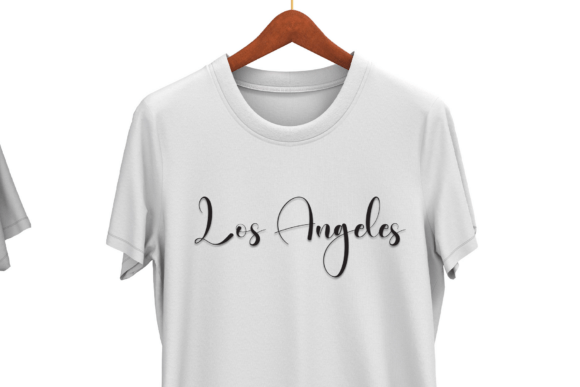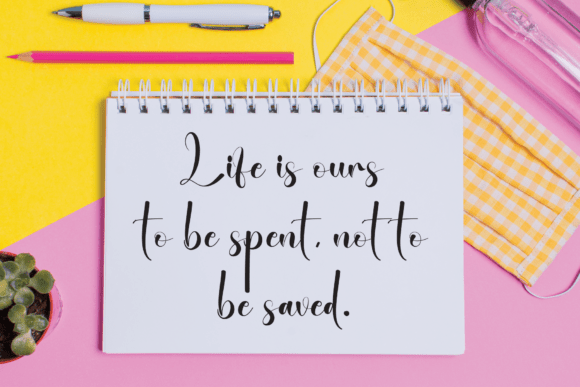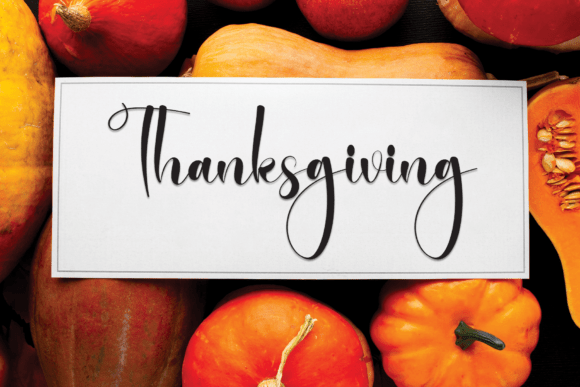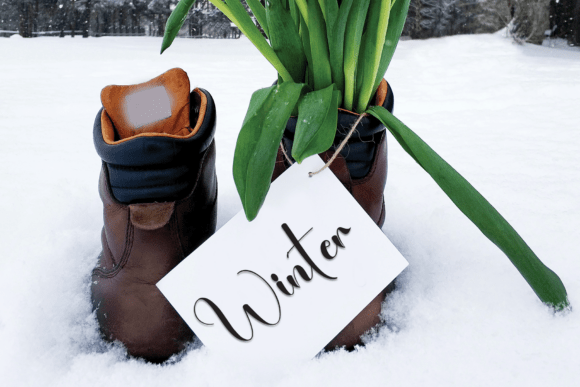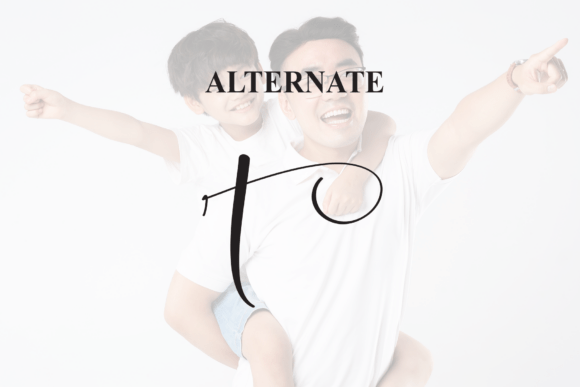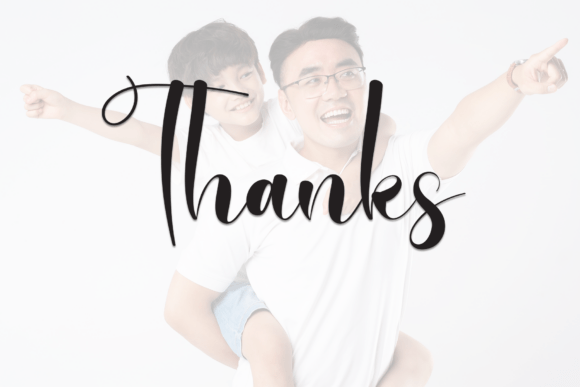
The Father Font: A Dynamic and Expressive Handwritten Typeface for Family Celebrations
A Personal and Expressive Typeface
The Father font is a dynamic and expressive handwritten typeface that celebrates the energy and connection of family life. This font is characterized by its sweeping, dramatic swashes and bold, rhythmic strokes that mimic the confident movement of a fountain pen. The Father typeface is designed to stand out, making it the perfect selection for high-impact headlines, commemorative posters, and sentimental branding projects.
Honest Review: What I Love and What I Don’t
- ✨ The Father font’s unique and expressive personality makes it perfect for projects that require a personal touch.
- ✅ The font’s bold and rhythmic strokes give it a confident and authoritative feel.
- 💕 The sweeping swashes and flourishes add a touch of elegance and sophistication.
- 🎉 The font’s versatility makes it suitable for a wide range of projects, from Father’s Day campaigns to photography book titles.
- 🤔 The font’s intricate letters and swashes can be overwhelming if not used thoughtfully.
- ⚠️ The font’s bold strokes can be overpowering if paired with other bold or dark elements.
The Father font was designed with the intention of capturing the energy and connection of family life. The designer wanted to create a typeface that would convey both strength and affection, making it perfect for projects that celebrate the special bond between family members. The font’s sweeping swashes and bold strokes are inspired by the confident movement of a fountain pen, giving it a unique and expressive personality.
Q: What is the Father font’s encoding?
Q: Can I pair the Father font with other fonts?
A: Yes, the Father font pairs wonderfully with structured sans-serif fonts, allowing the script’s flourishes and intricate letters to take center stage without overwhelming the composition.
Q: Is the Father font suitable for body text?
A: While the Father font is beautiful and expressive, it’s best suited for headlines and titles. For body text, consider using a clearer and more legible font.